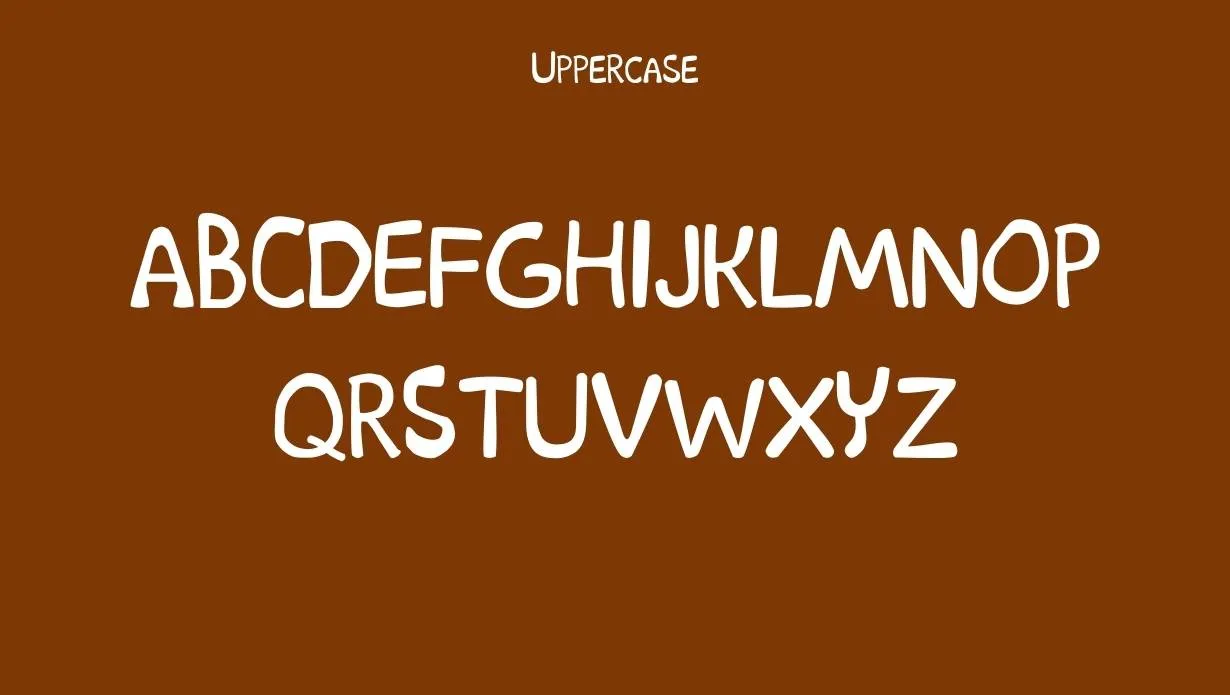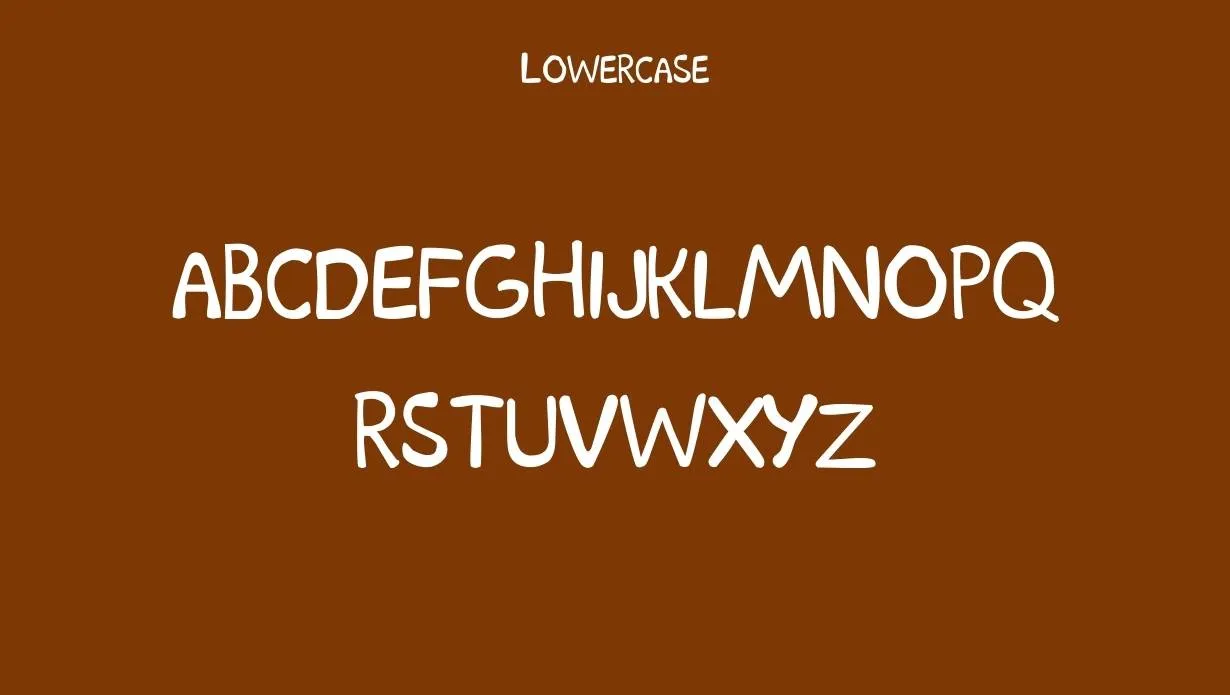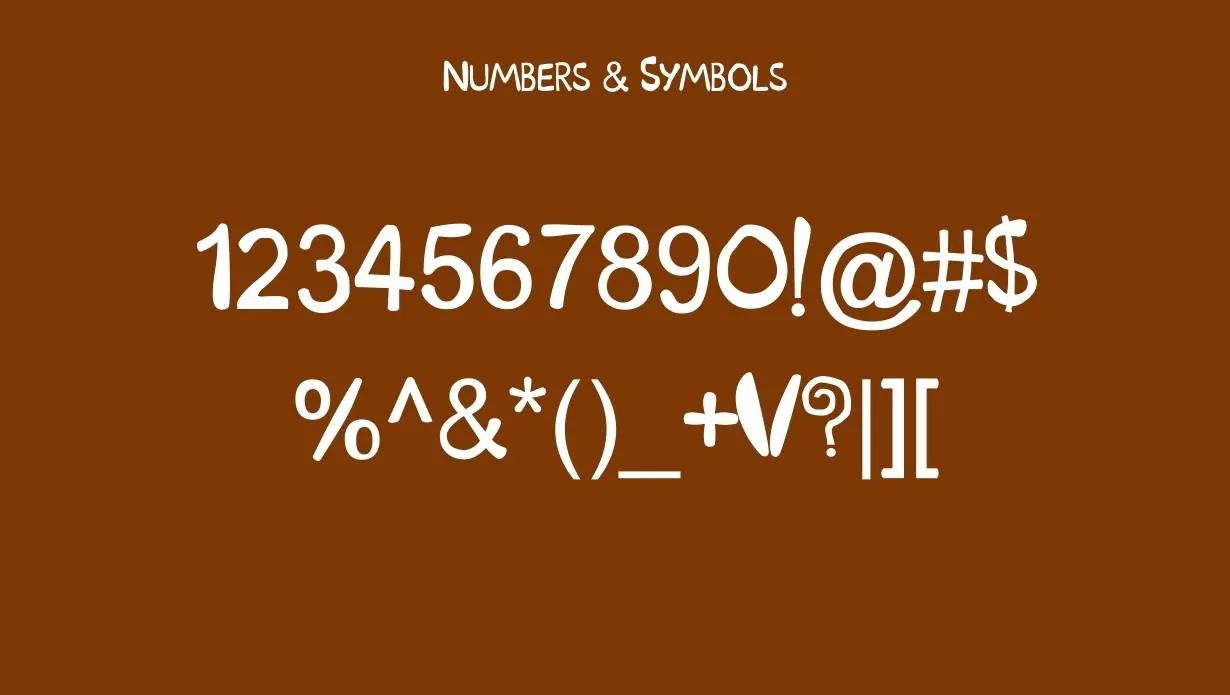
Scooby Doo Font comes in the Fancy font family that was designed by Lauren Ashpole, it was created for a tv show “Scooby Doo” cartoons.
This typeface has an attractive, unique, and stylish texture that can add a distinctive touch to your design appearance.